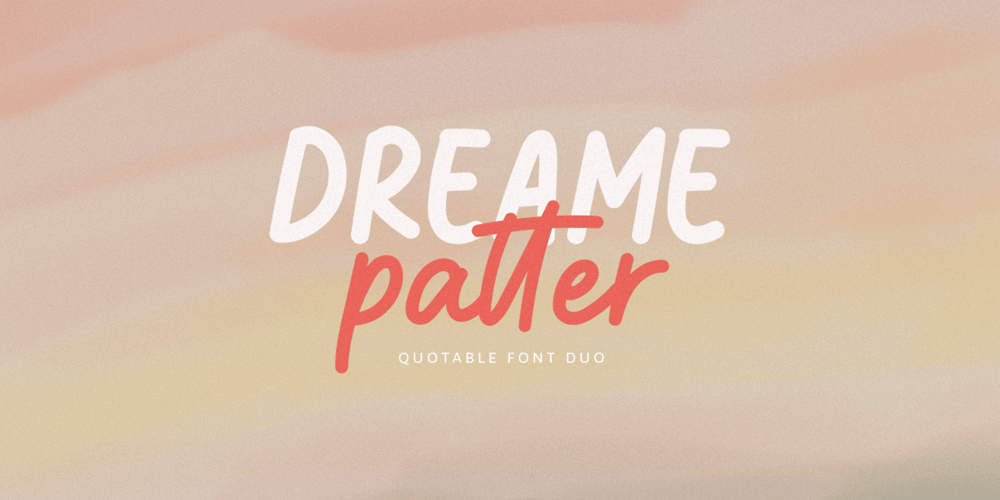
Dreame Patter Font Family was designed by Agam Rahmadan and published by Viswell. Dreame Patter contains 2 styles and family package options. Dream Patter is a handwritting font duo, this font comes with two style Script & All Caps.Make your Quotes, Craft, and any design with Dream patter.Dream Patter include : Dream patter – Script (With alternate Lowercase) Dream patter – All Caps Numeral & Punctuation Multiligual Thank you ๐